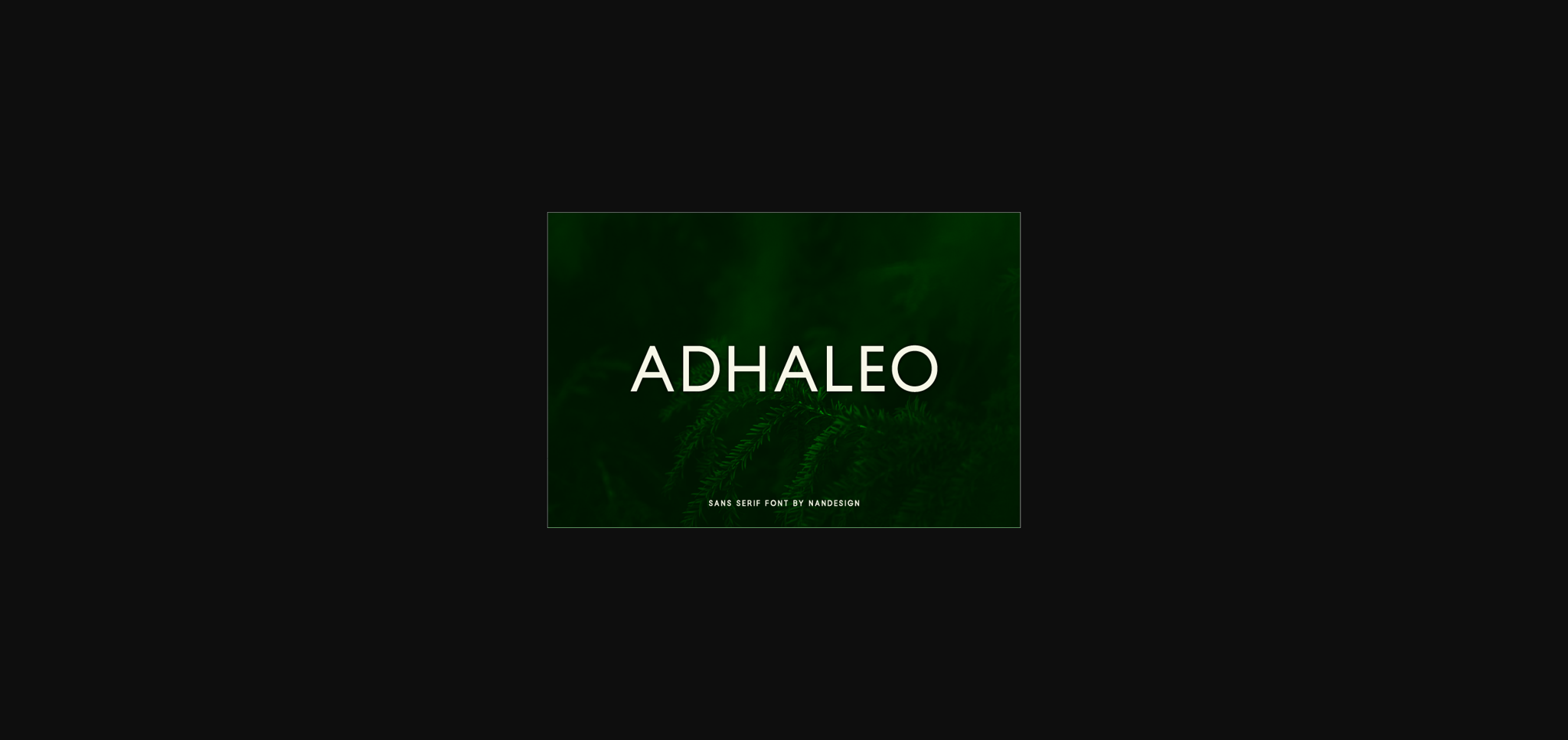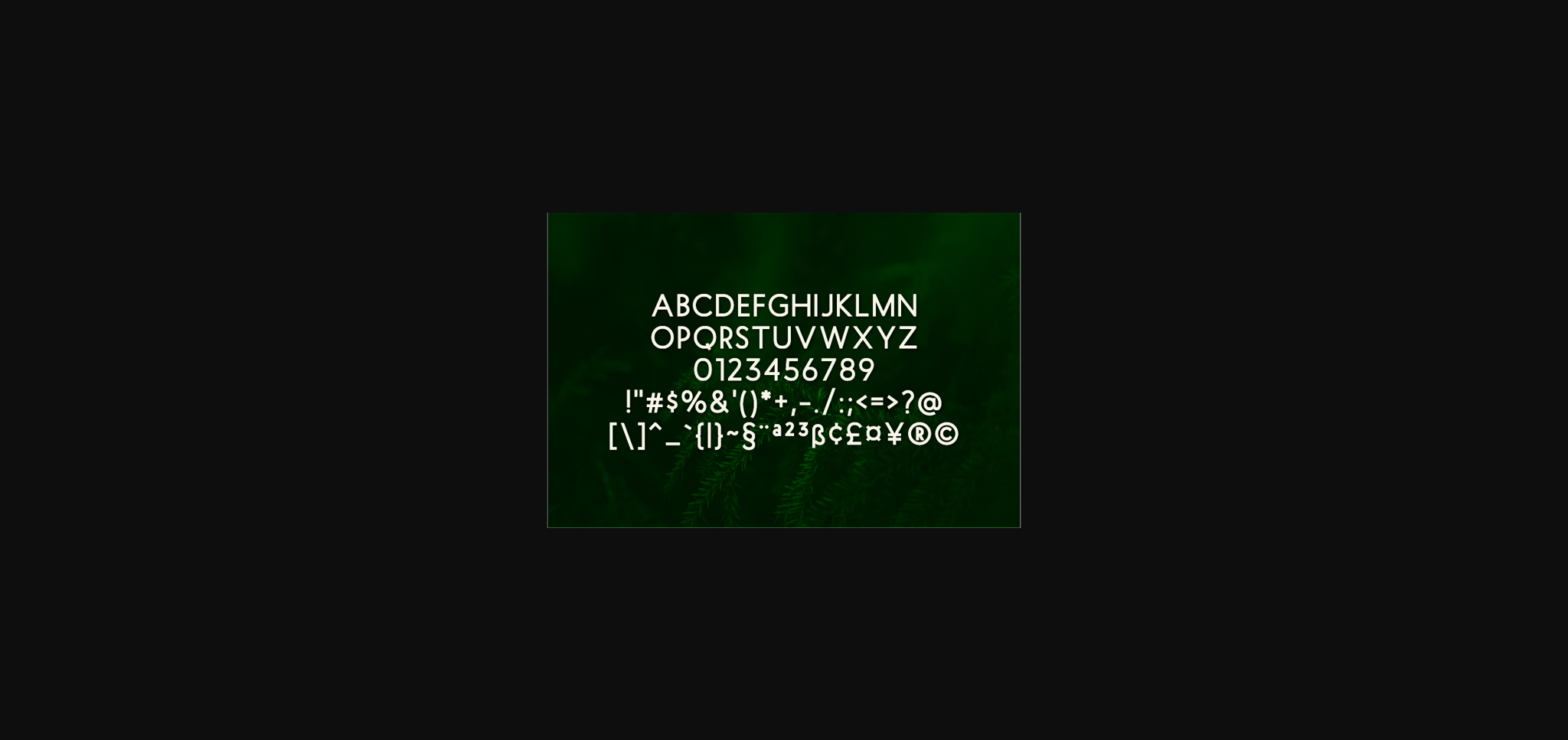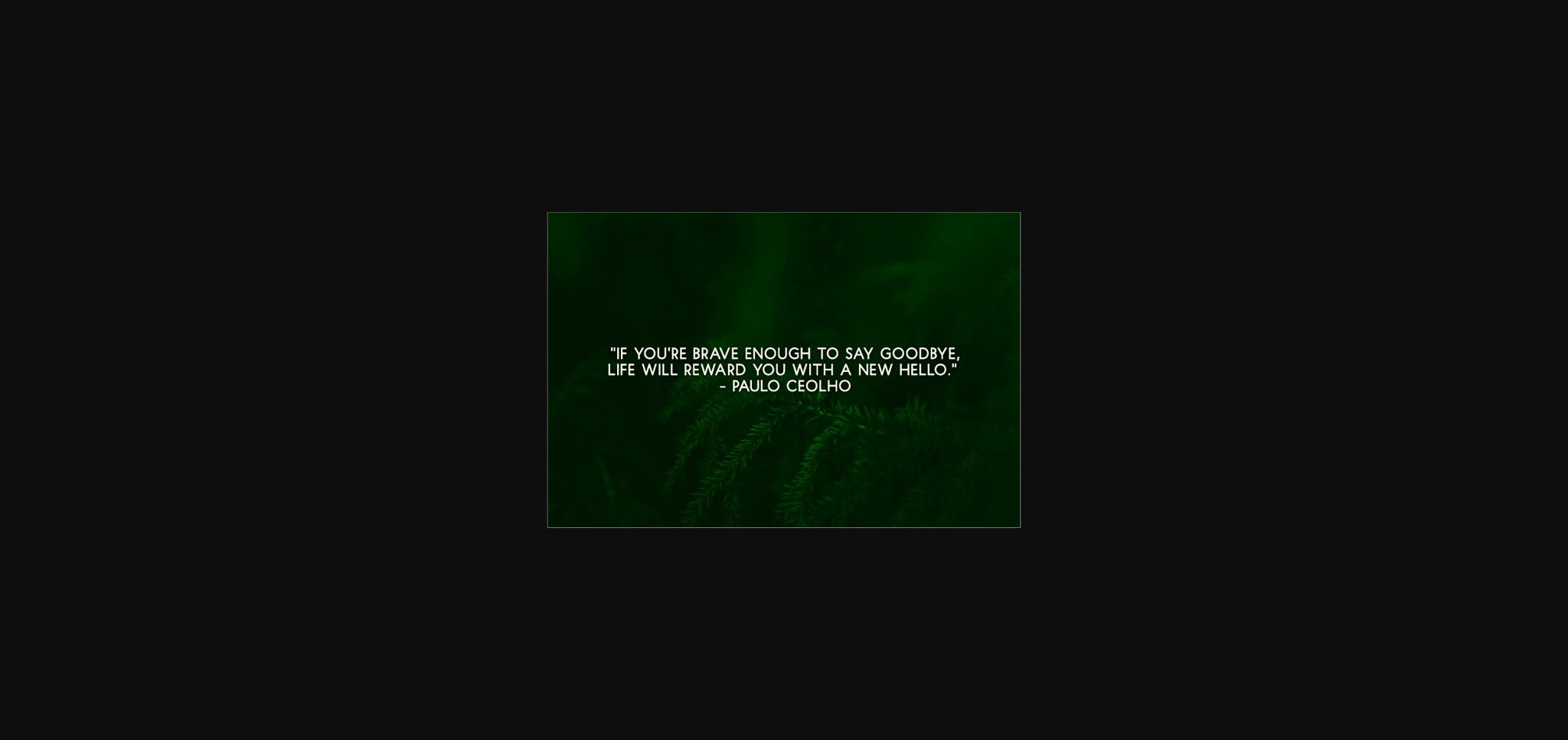
HomeSans Serif FontsAdhaleo Font Sans Serif Fonts Adhaleo Font FacebookXPinterestWhatsApp 1 of 5 ... Adhaleo Font Poster 2... Adhaleo Font Poster 3... Adhaleo Font Poster 4... Adhaleo Font Poster 5... About Adhaleo Font Adhaleo is a clean and smooth sans serif font. No matter the topic, this font will be an incredibly asset to your fonts’ library, as it has the potential to elevate any creation. DOWNLOAD NOW People also explored Sofia Font Solid Font Camelia Font Chicago Athlete a Retro Sporty Font Enamel Simple Billiards Font Peach Triblend Bella Canvas 134B Mockup Khalifa Font Vanilla 335 0 TagsAdhaleoAdhaleo Font Previous articleCostine FontNext articleMezdaluna Font LEAVE A REPLY Cancel reply Comment: Please enter your comment! Name:* Please enter your name here Email:* You have entered an incorrect email address! Please enter your email address here Website: Save my name, email, and website in this browser for the next time I comment. Personal Use Free Lemon Milk Font Personal Use Free Read more about this font Xplor Personal Use Free Read more about this font Beat My Guest Personal Use Free Read more about this font Oaklevin Personal Use Free Read more about this font BLOG How to Install and Use Fonts on Windows, macOS, and Web Projects How to Install and Use Fonts on Windows, macOS, and Web Projects Fonts are a crucial part of design and branding. Whether you’re designing a... Fonts That Capture the Spirit of New York City Modern Sans-Serif Fonts That Brands Love in 2025 Free Fonts Risk: Why Free Fonts Can Be Dangerous for Designers